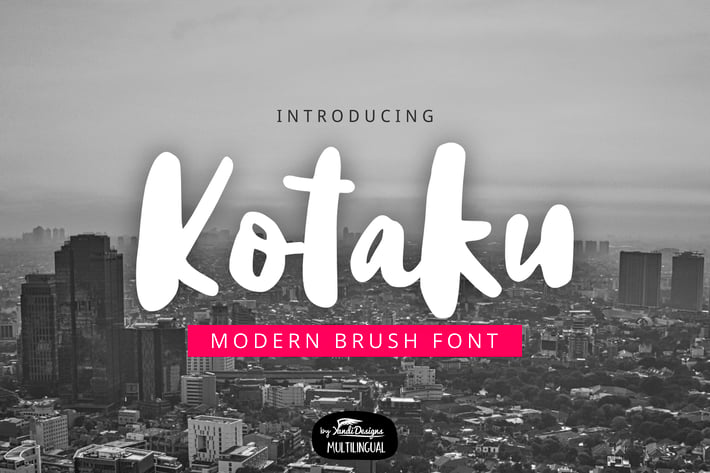
Kotaku Font
Kotaku City Brush Font
Kotaku is modern multipurpose handmade brush font, suitable for many project children book, quotes, logo , heading , title etc.
Basic Latin (Standard English character , number, symbol)
Multilingual Support (minimal English, French, Spanish, German, Italian, Indonesian, Malay)